26. One Day
One Day is a slim uppercase typeface designed by Nawras Moneer. It is fresh, modern, simple — it’s not too serious and has just the right amount of class.
25. Casual
This font deceives you with its simplicity. Once you start using it, you will begin to see all the details each letter comes with. Pelin Maravent and Gülsah Cansever are the designers behind this casual font.
24. Dpopper
This cute-cute font with a comic 3D look is designed by Iordanis Passas. Sky is the limit with this font, like literally.
23. Facunda
Here is another 3D font with a dark details. It comes with five different styles. Facunda is a tall, dark edged, sans serif font designed by Bu.
22. Alcubierre
If I had to use one font all my life, I would go with Alcubierre by Matt Ellis. Its thin, straight, geometric but not harsh, sleek but not too sharp, its minimalist look can go a long way depending on how you use it.
21. Amada
This font, designed by Edu Oliveira, has a story behind it. The designer was inspired by the lettering on a wall in the streets of Limoeiro, his hometown. This no-nonsense font can be used a number of ways!
20. Athene
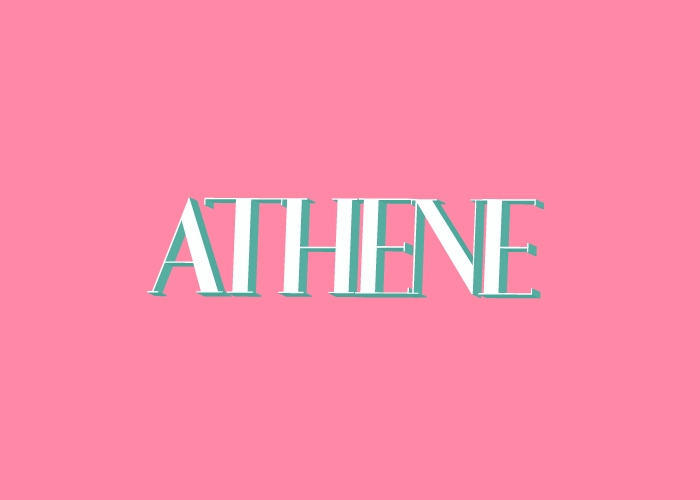
The classic-classic serif font which is amazingly easy to pair, Athene, comes with accents, numbers, and absolutely adorable lowercase style. The clean, geometric look goes perfect with minimalist, even corporate, designs.
19. Atifa
It is an all-caps serif font with handwritten feel. The detailing is absolutely spot on. You can see the ink getting thicker and thinner with the pressure of the hand in different letters. Love the inconsistency!
18. Besom
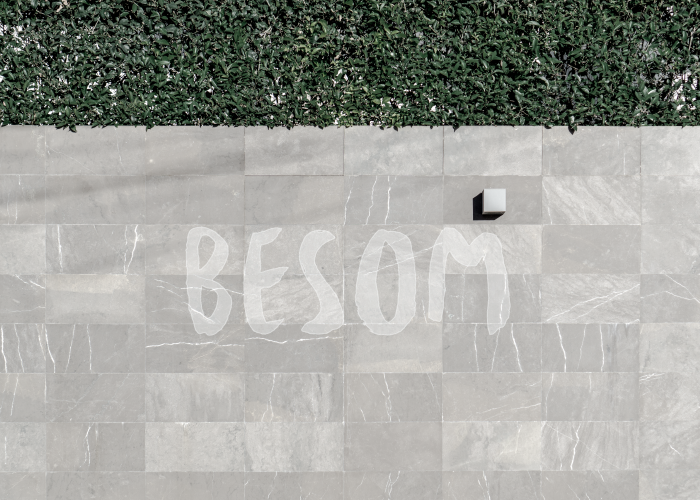
Besom is created by KRISIJANIS MEZULIS & Gatis Vilaks. It’s a handwritten brush font with a quite nostalgic vibe. It just goes with all the polaroid-pictures, 90’s vibe theme you have in mind.
17. Blow
Petar Acanski designed this bold and bubbly brush typeface inspired by the hip hop culture and graffiti art. To maintain legibility and clarity, Acanski added a few variations to the font. You can download it from the link above.
16. Cute Punk
Cute Punk comes with three different weights. Accents are also available in the font. Depending on how you use it, you can take this and give it a retro spin or a K-Pop, bubblegum vibe.
15. Lena
See those easy curves? That is the mark of a quality font. It’s geometric yet it is soft, it is simple yet makes a statement. It is perfect!
14. Mightype
Taking you to Tuscany’s vineyard (not even sure if they have those) - the way this font curls up at the edges, it just makes you want to hit the download button.
13. Milkshake
Laura Worthington came up with Milkshake. It comes with a lot of bonuses, and 8 alternatives to each character. It is like stealing!
12. Montepetrum
Available in three weights, Montepetrum is a the font sans serif, thin-lin dreams are made of. If Lato, Existence Light or Alcubierre are just not doing the job — trying Montepetrum would not hurt.
11. Rainwood
IanMikraz Studio are behind Rainwood, a handmade brush font which comes with 232 glyph, 52 alternate characters, 2 stylistic alternates, standard ligatures and more!
10. Verona Lotte
This hand-lettered, brush font is the reason why hand-lettered fonts look so beautiful. Zoom and see the inconsistency in letters, it does not look like a fake, made-up-to-look-like-handmade font. The roughness in the letters makes it ten times more elegant.
9. Salvador
With varying thickness, subtle handmade detailing, and the slight curve in each letter makes Salvador a constant favorite.
8. Shellahera
Made with a brush pen, ShellaHera is a beatiful script font with a varying baseline. Lostvoltype also has a full-version of the font available.
7. Wildera
This adorable, little script font comes in uppercase, lowercase and ligatures. The flourishes and the defined kerning makes it a must have font.
6. Joli
Joli is not everybody’s come of tea. This sky-scraper like structure of the font makes it a unique choice. It is extremely current and stylish. One can do wonders with it.
5. Kano
The unique think about Kano is the geometric edges. Rather than looking serious and straightforward, Kano has a quirky feel to it. Full marks for innovation!
4. Kirvy
This sans serif font family comes with four weights. It is straight and geometric with round, softer edges. Works perfect no matter what the scale is.
3. Selima
Another brush script typeface. It comes with rough edges which makes the lettering look super authentic. It’s a bit on the bold side, still it manages to maintain the elegant and delicate look.
2. Reckless
Reckless is a brush sans serif typeface. This straight, slightly italic font is heavily textured. thank Nadi Spasibenko is the designer behind this font.
1. Synthesia
Synthesia (or FloGreen as it shows up in the library) is a narrow looking sans serif font with rounded edges. It has a touch of vintage vibe and can be used a number of ways.